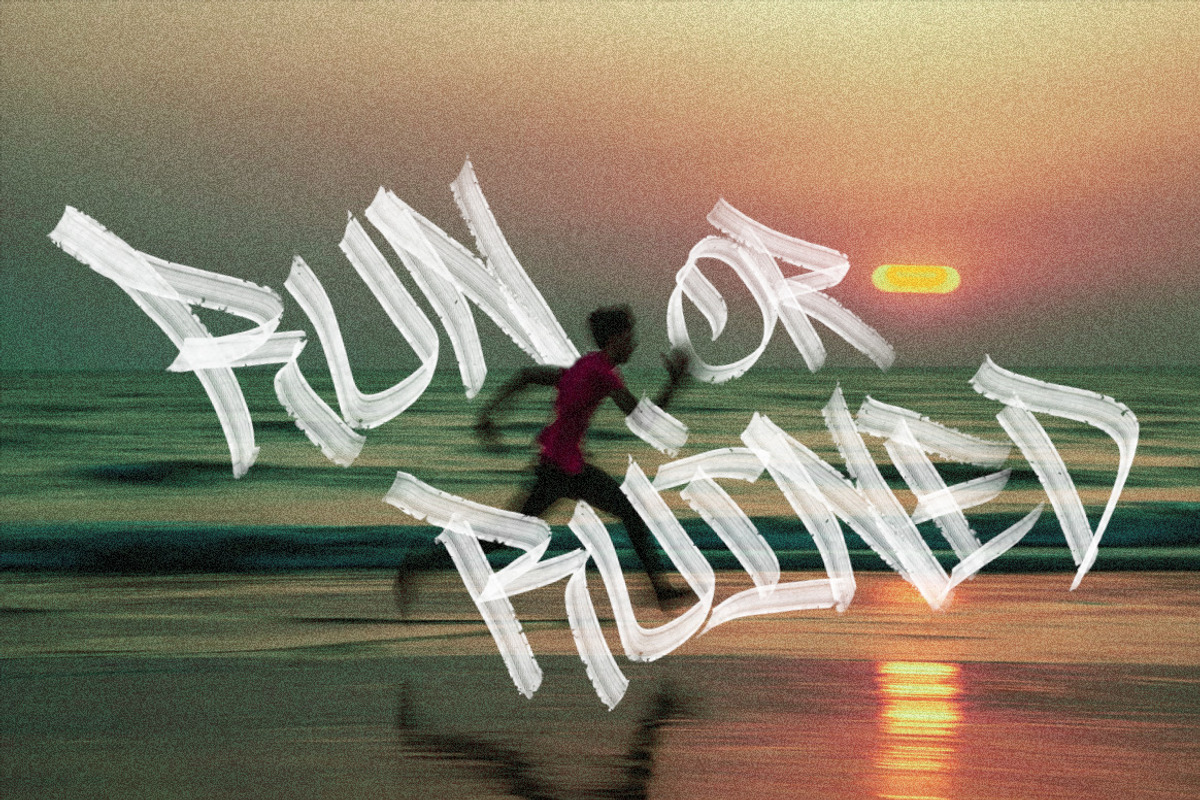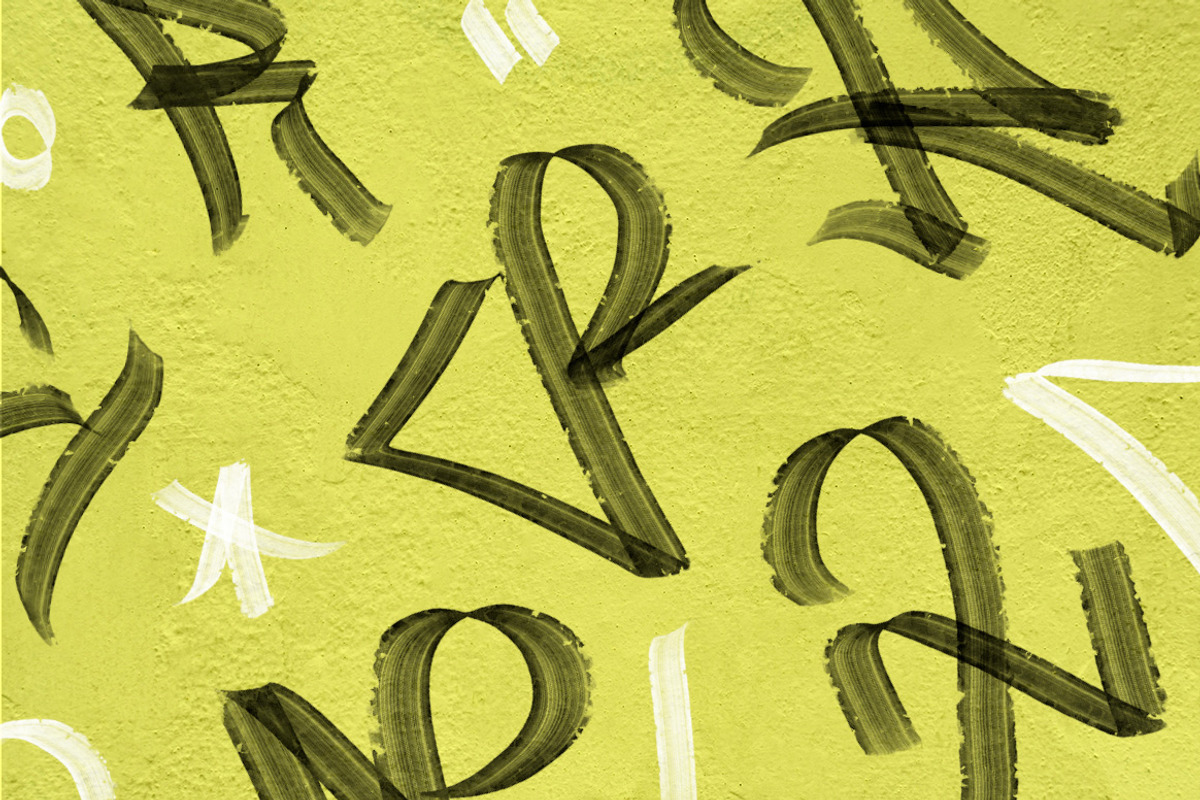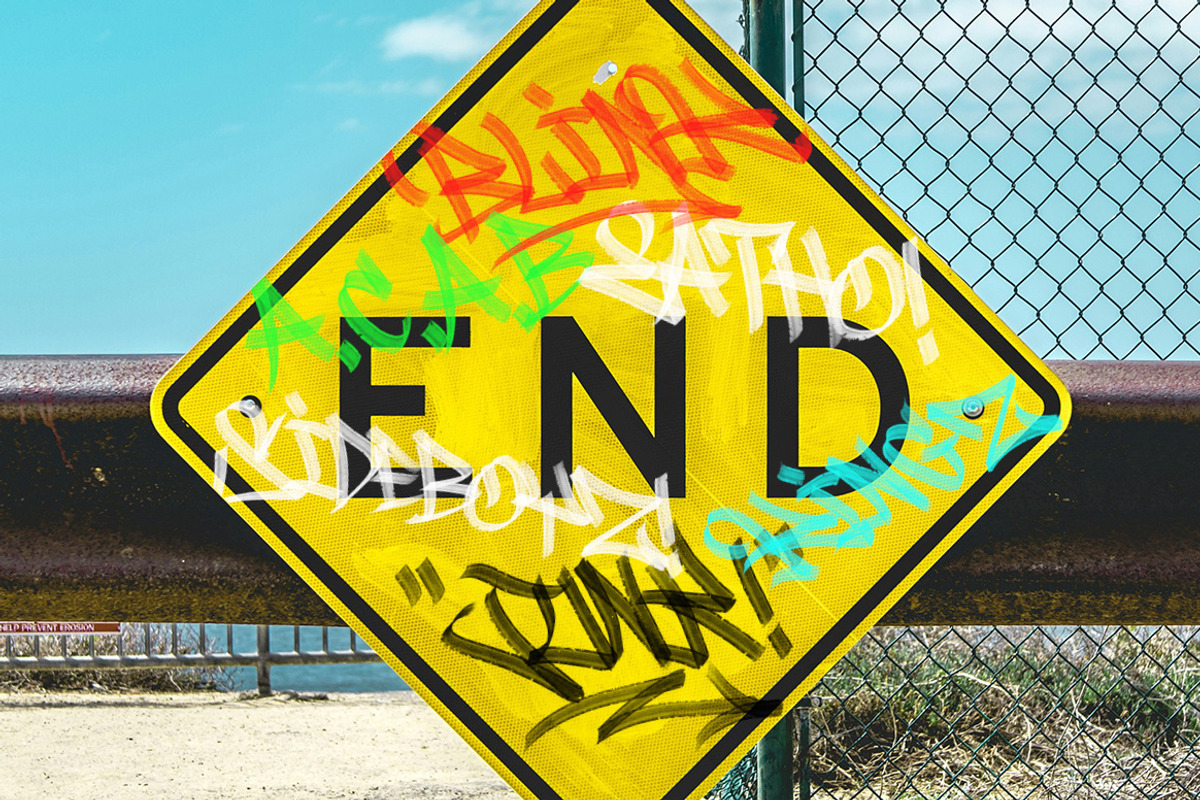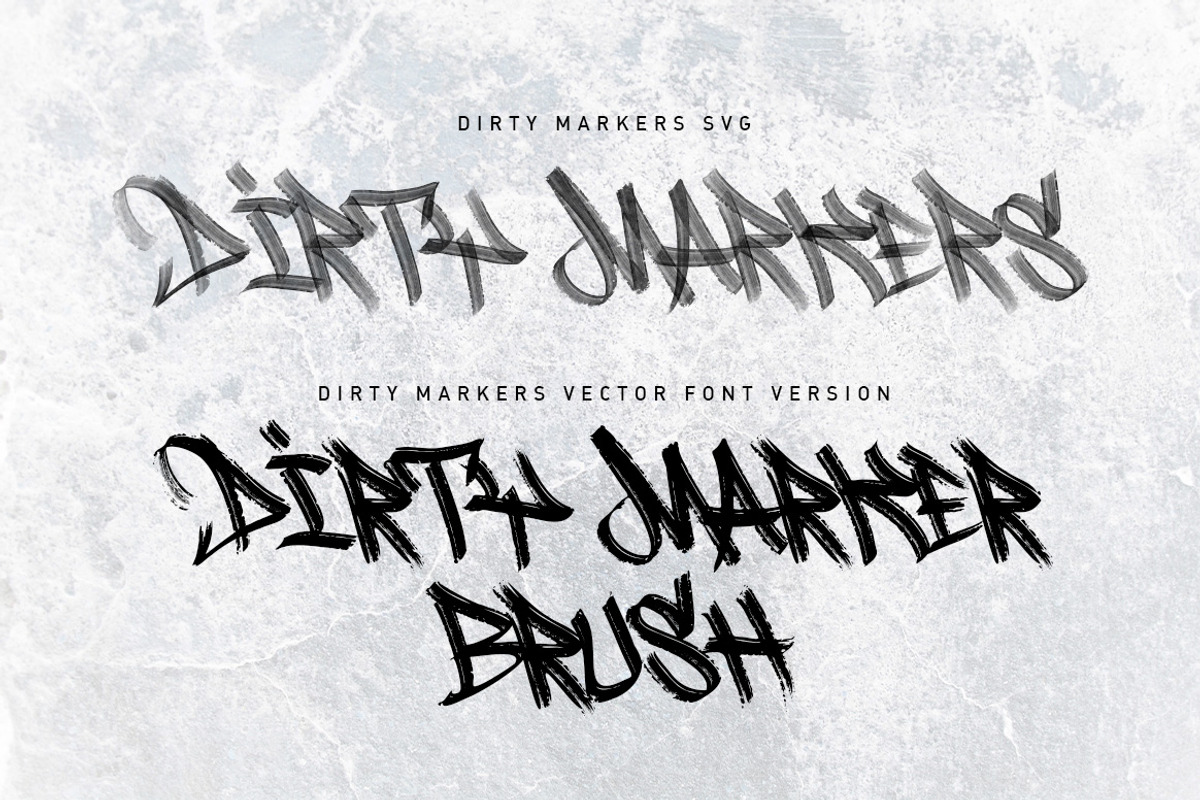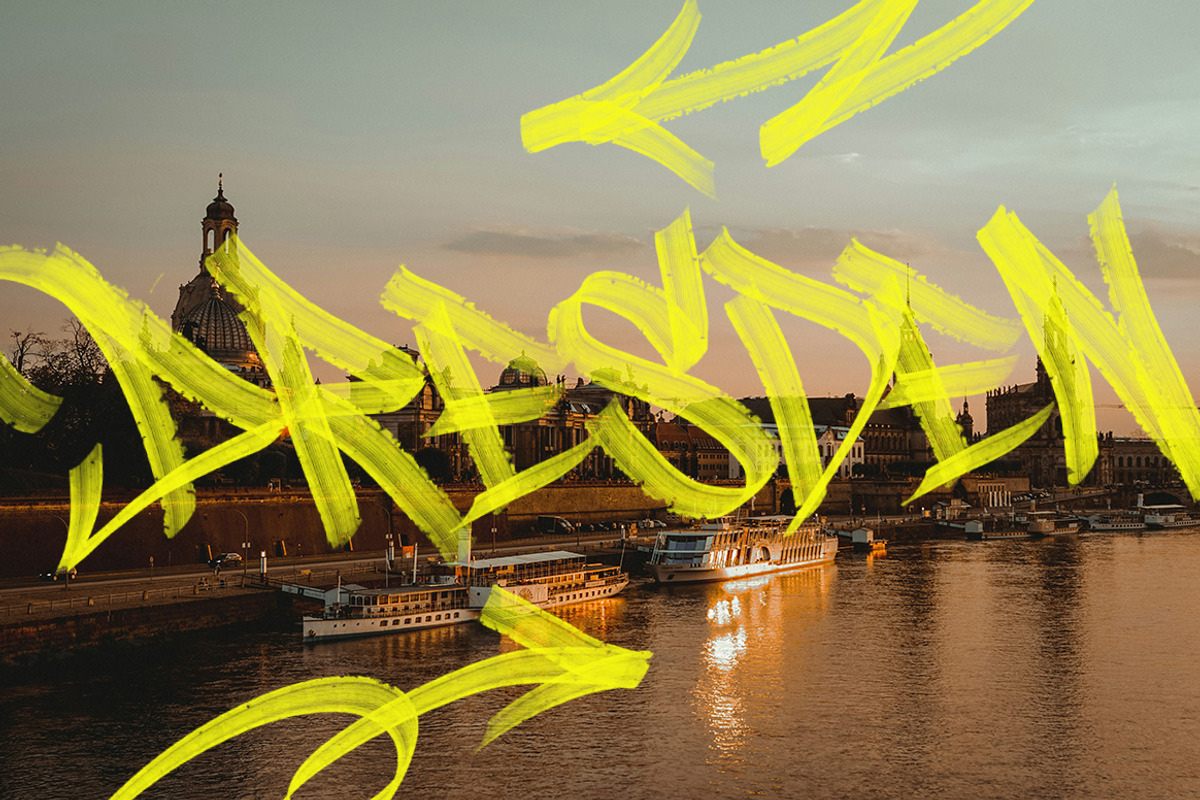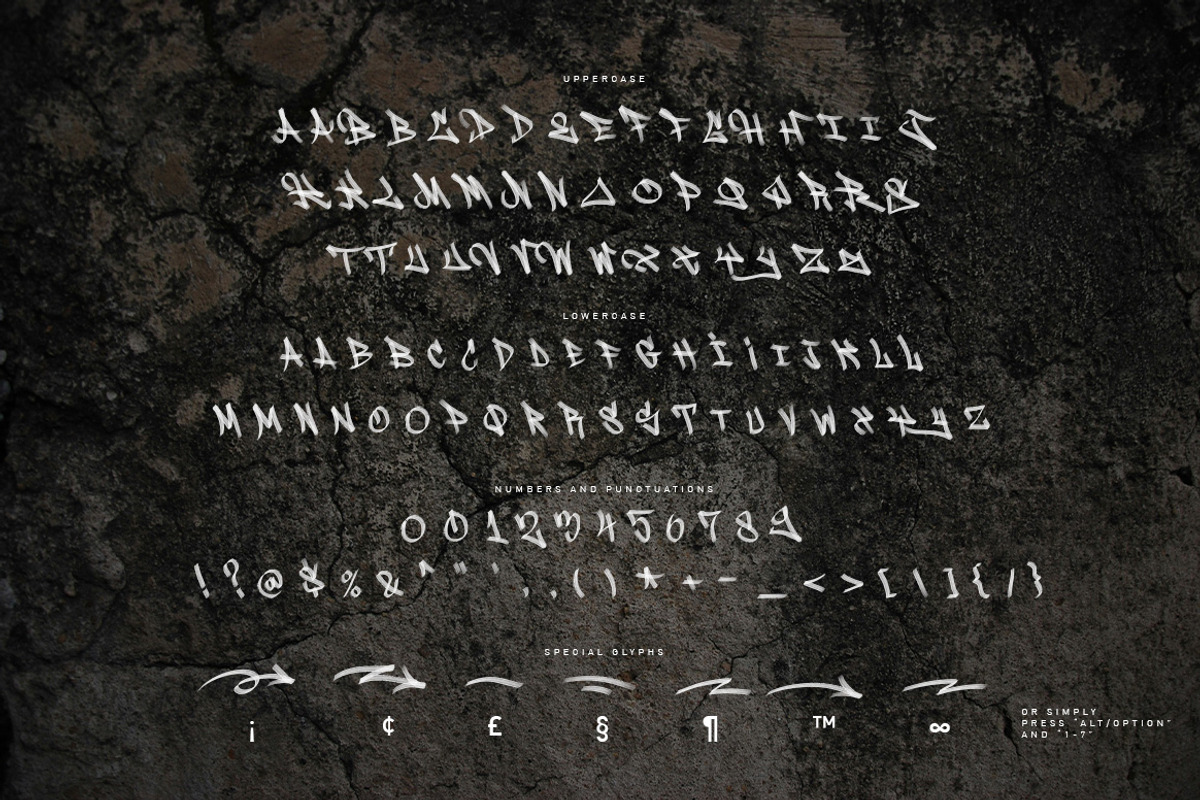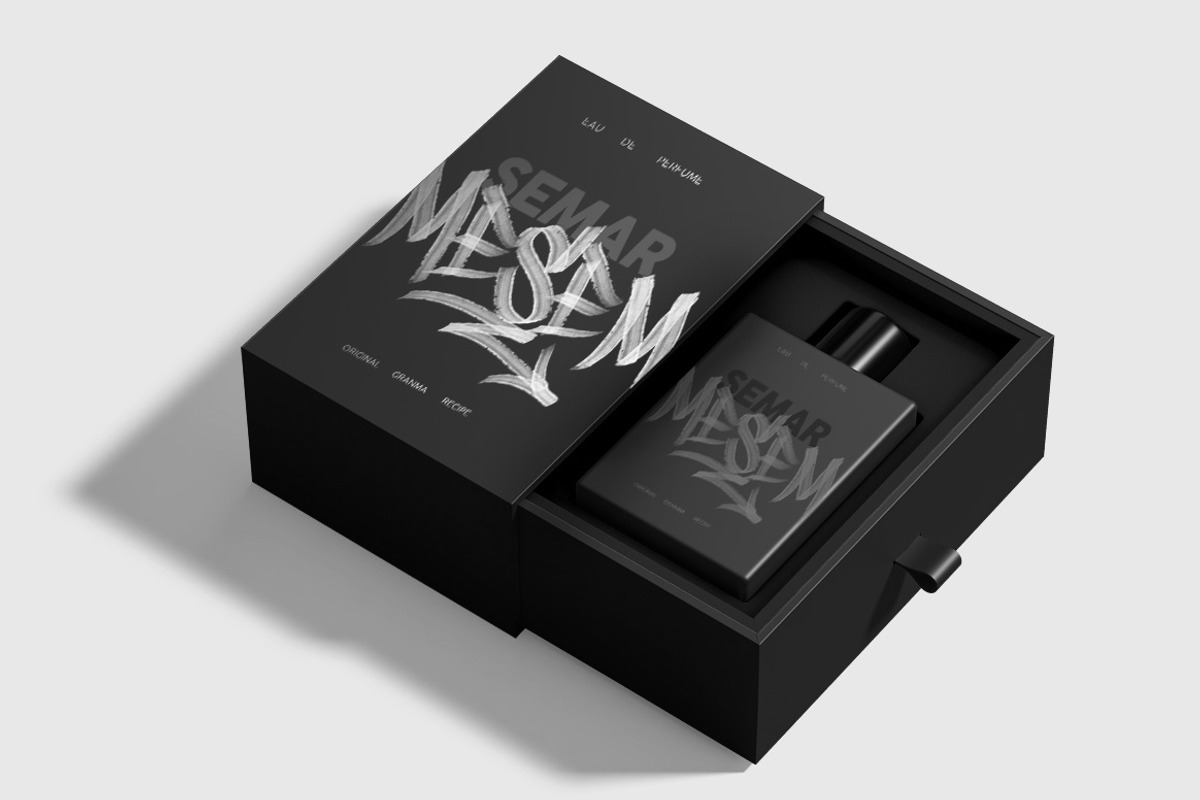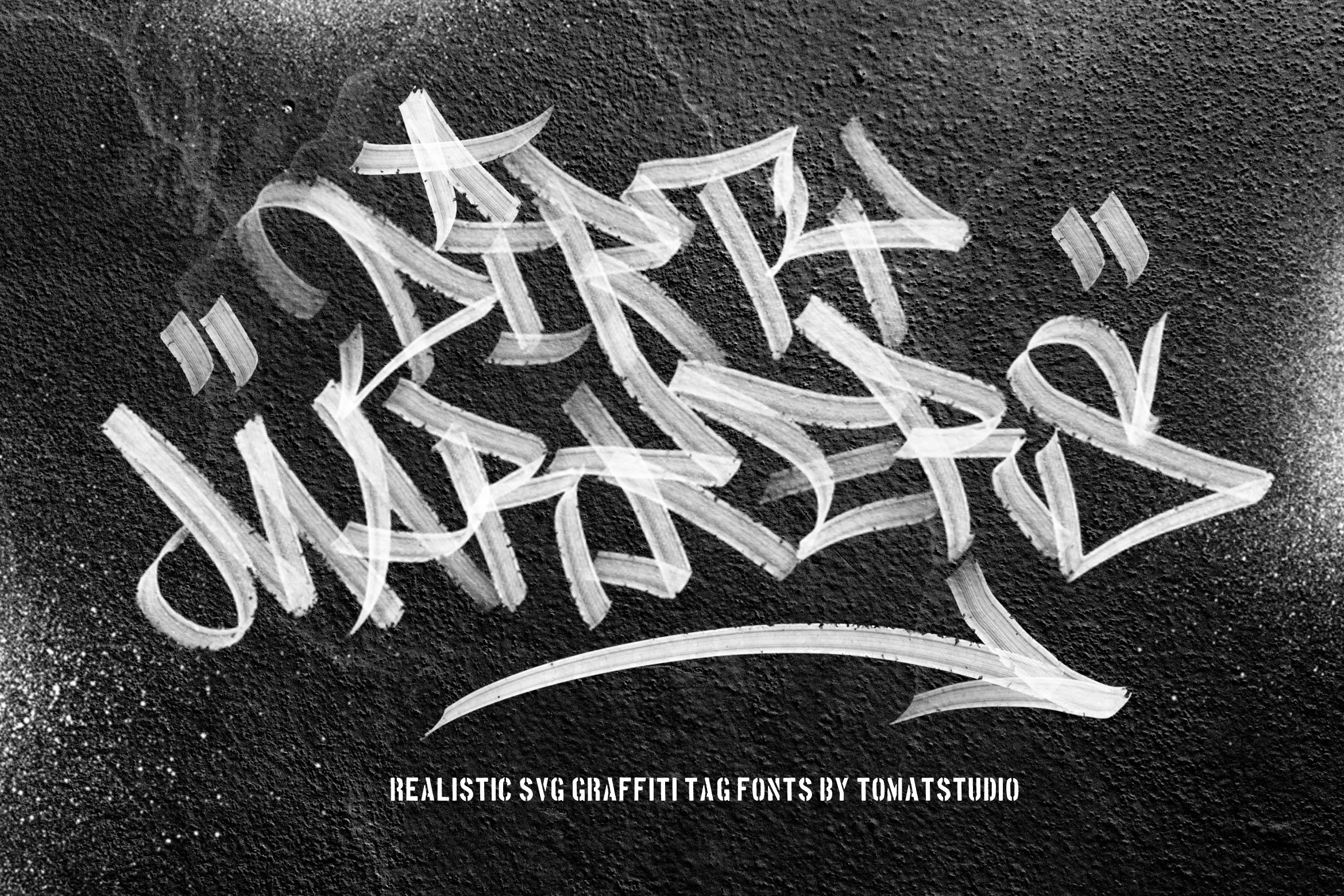
Dirty Markers SVG Fonts
Dirty Markers SVG FontsRealistic graffiti tag fonts with dirty marker style, created by real graffiti writers, so the feel is different and more like in the street. Besides that, I still recommend that you adjust the spacing manually for perfect results. You'll also get many alternatives for the best result.
The Uppercase is designed for the first word, and the uppercase alternate is designed for the last of the word. Also, there's the special letter "¡™£¢∞§¶," or you can simply press "alt/option" + "1-7." You'll also get the regular version of the OTF fonts. Cheers!